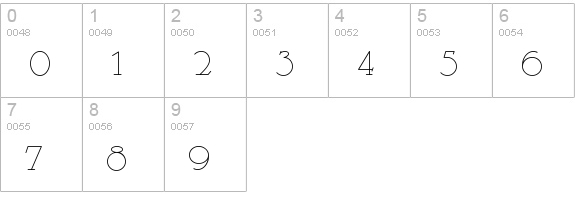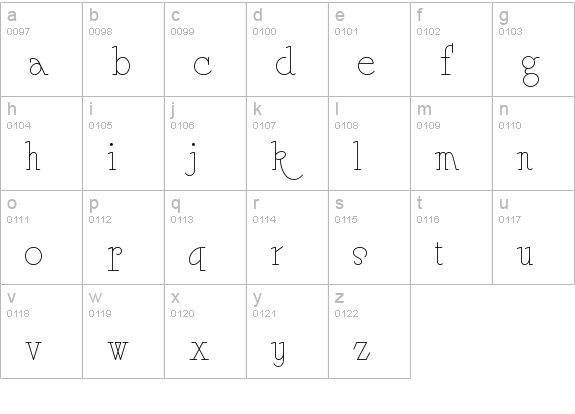
Whg Simpatico NF Font Details
Introducing Whg Simpatico NF, a font that effortlessly combines elegance with a touch of playfulness. With its graceful curves and smooth lines, this font exudes a sense of sophistication that is perfect for a wide range of design projects. Whg Simpatico NF is designed to capture attention and make a lasting impression. Its unique and stylish letterforms are sure to stand out, whether used in headlines, logos, or any other creative endeavor. The font's versatility allows it to be used in both digital and print media, ensuring its adaptability for any project. One of the most remarkable aspects of Whg Simpatico NF is that it is available for free. Yes, you read that right - this incredible font can be downloaded without any charge. FontsMarket.com is proud to offer this font as a free download, making it accessible to designers, artists, and enthusiasts alike. Whether you are a professional designer looking to add a touch of elegance to your work or an aspiring artist wanting to experiment with new fonts, Whg Simpatico NF is the perfect choice for you. Its seamless blend of style and usability will undoubtedly elevate your creations to new heights. Don't miss out on the opportunity to enhance your designs with this exceptional font. Visit FontsMarket.com today and download Whg Simpatico NF for free. Embrace its elegance, unleash your creativity, and let your imagination soar to new horizons with this remarkable font.